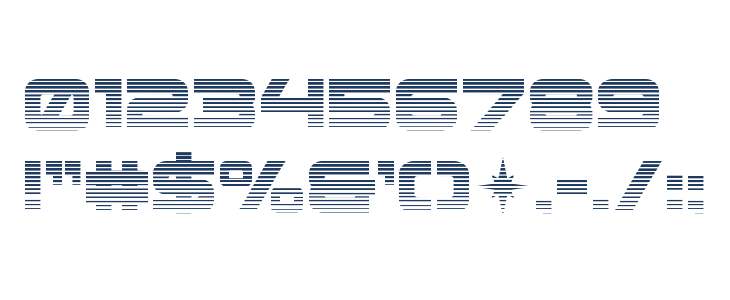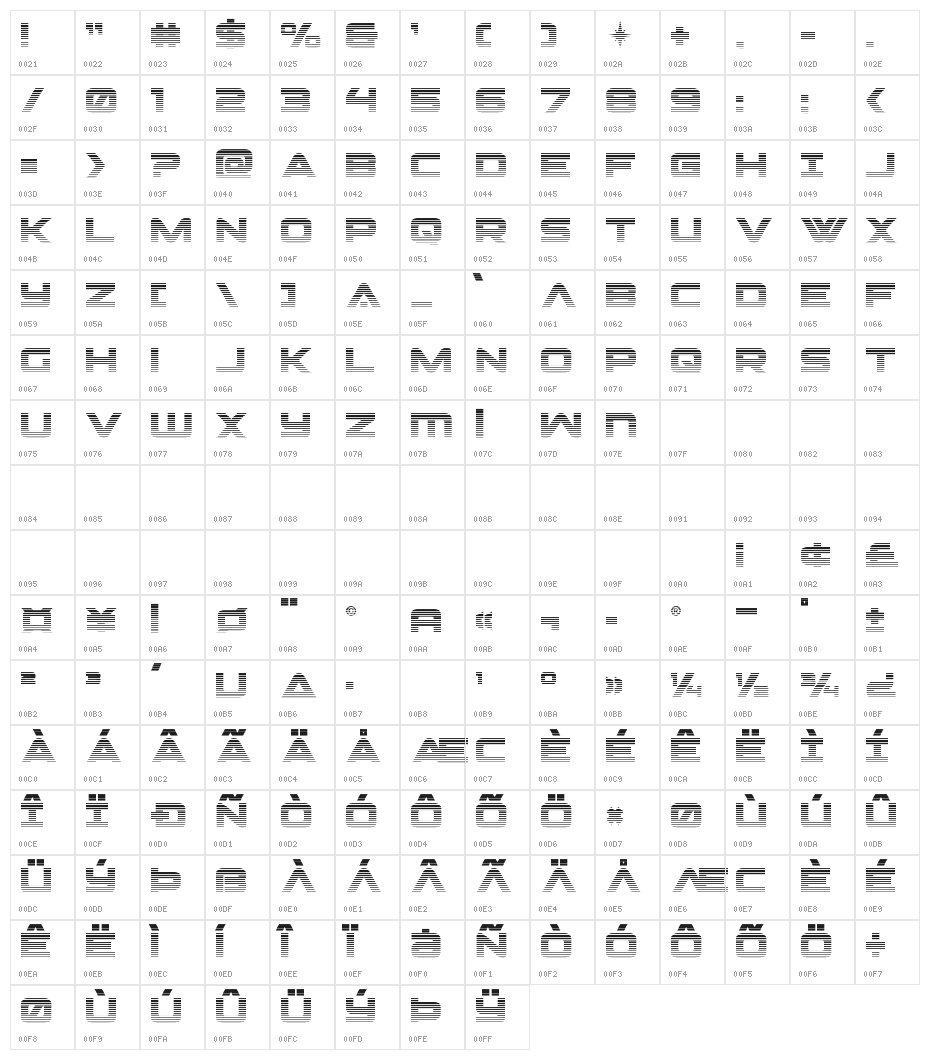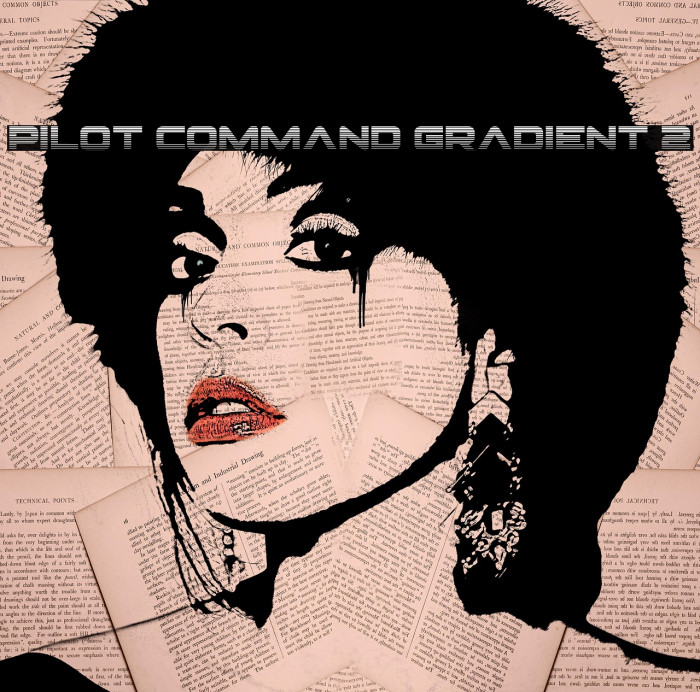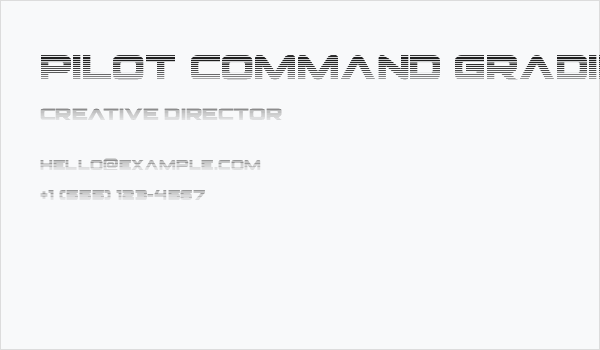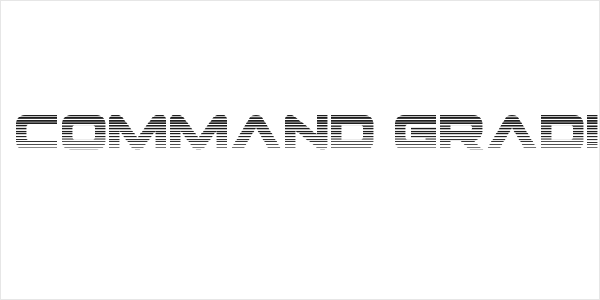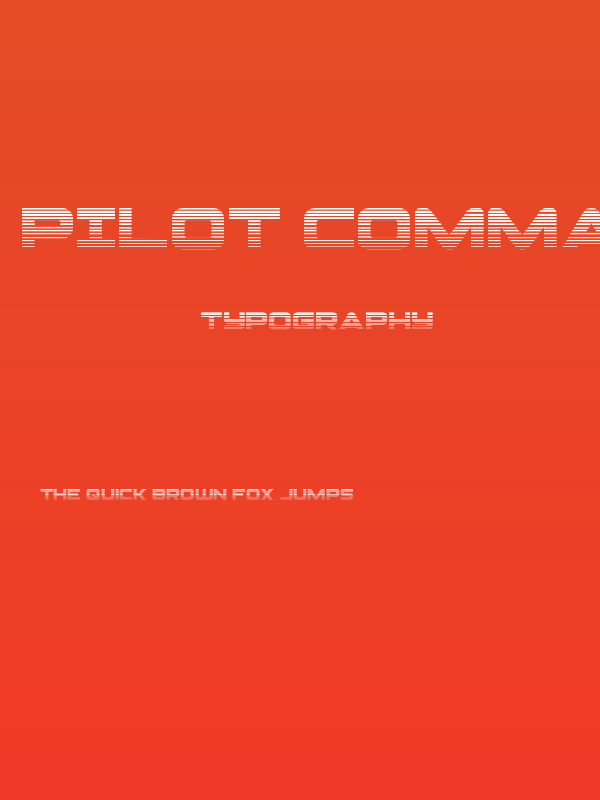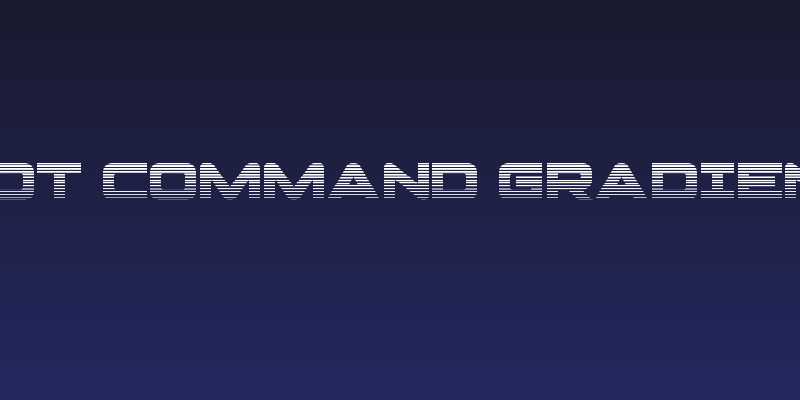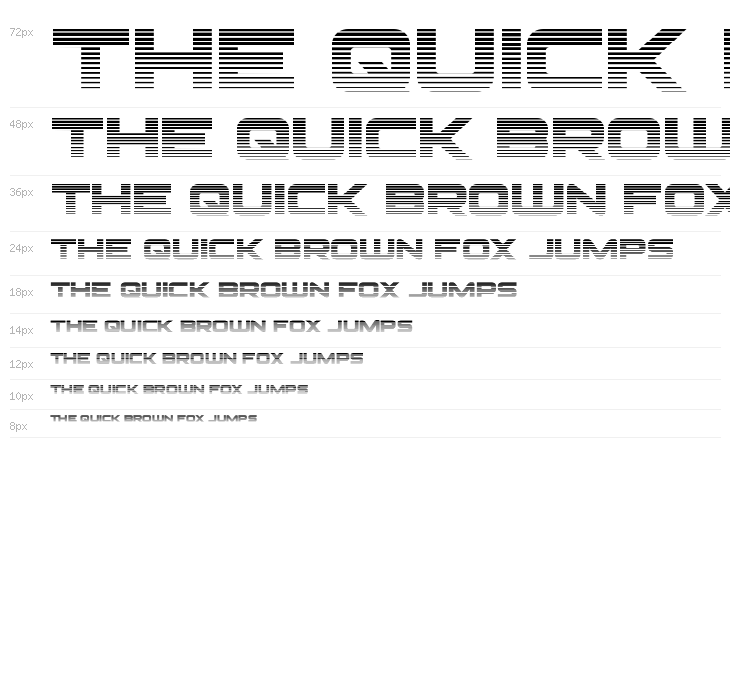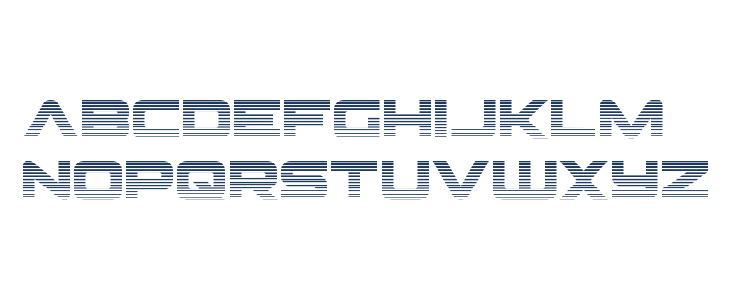
Pilot Command Gradient 2 Font
Pilot Command Gradient 2 Description
This font features a futuristic and dynamic design, characterized by its unique gradient-like horizontal lines that create a sense of movement and depth. The uppercase and lowercase letters maintain a consistent style, with each character composed of parallel lines that vary in thickness, giving a digital and modern appearance. The numerals and special characters follow the same design principle, ensuring uniformity across all glyphs. This font's distinct style makes it stand out, offering a bold and innovative look that is both eye-catching and versatile.